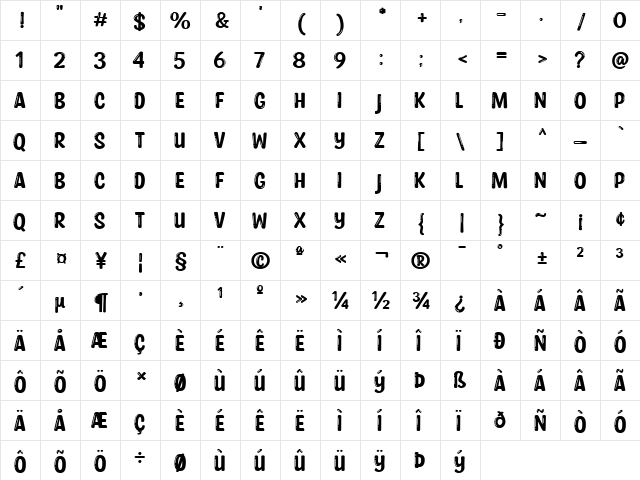
Stay and Shine Regular
Design Context for Stay and Shine Typeface
Stay and Shine is a composed and adaptable typeface that performs quietly and consistently across a wide range of design contexts.
Pro Tip: Use Stay and Shine in both headline and body roles to test its range before committing to a single application.